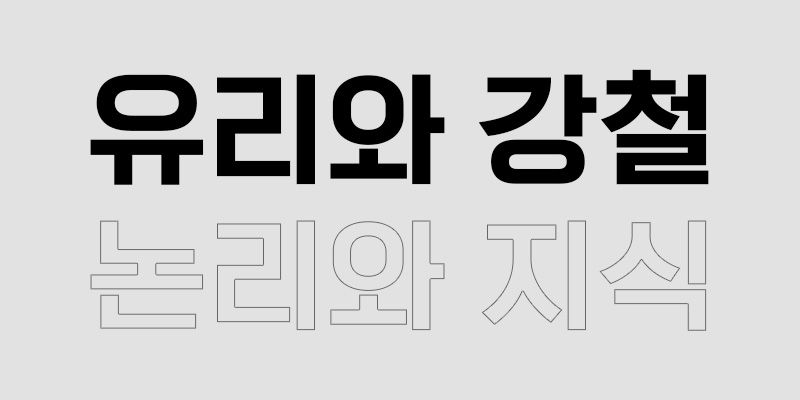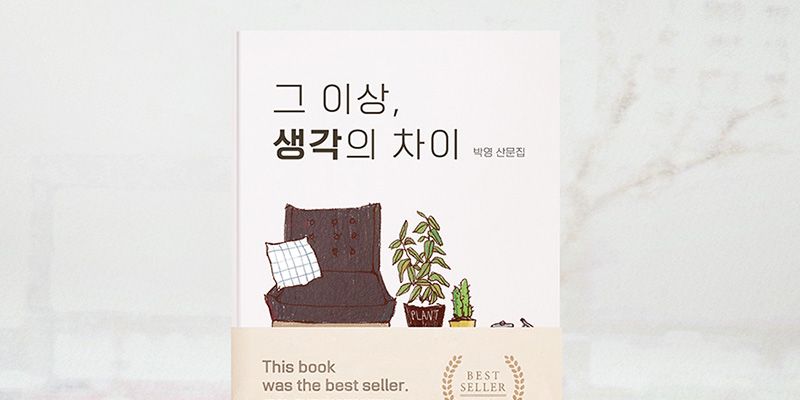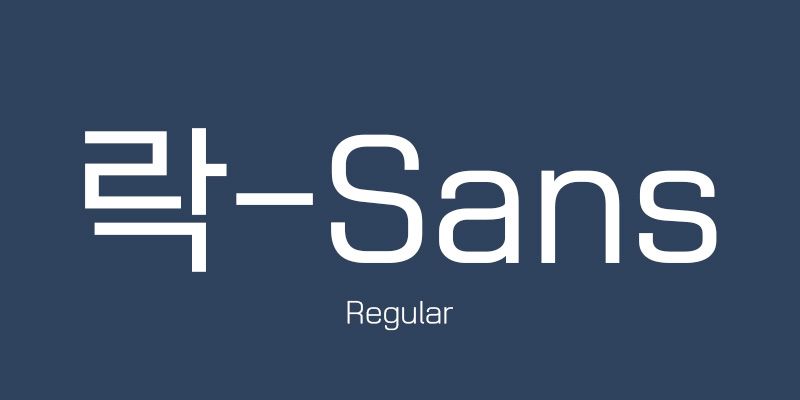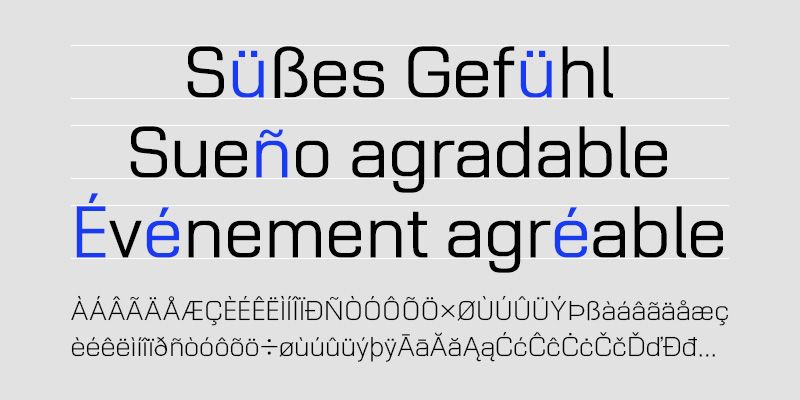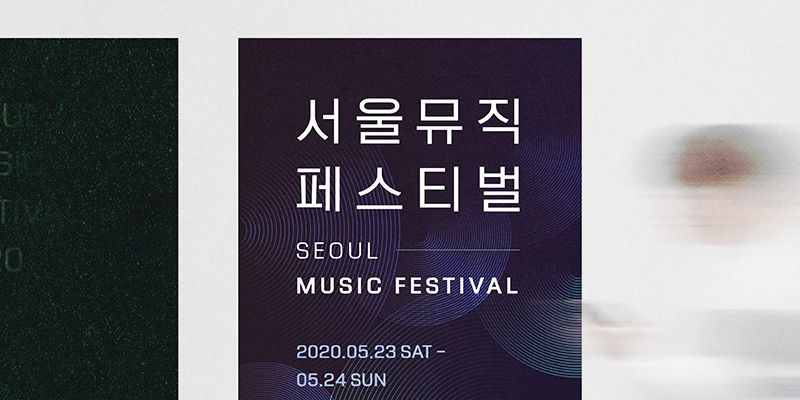
RixRak-Sans is a font featuring full-sized square characters in sophisticated forms, which have the effect of producing neat, clean, and mild-looking letters. For easy application in all circumstances, this font comes in 9 thicknesses that satisfies various needs.